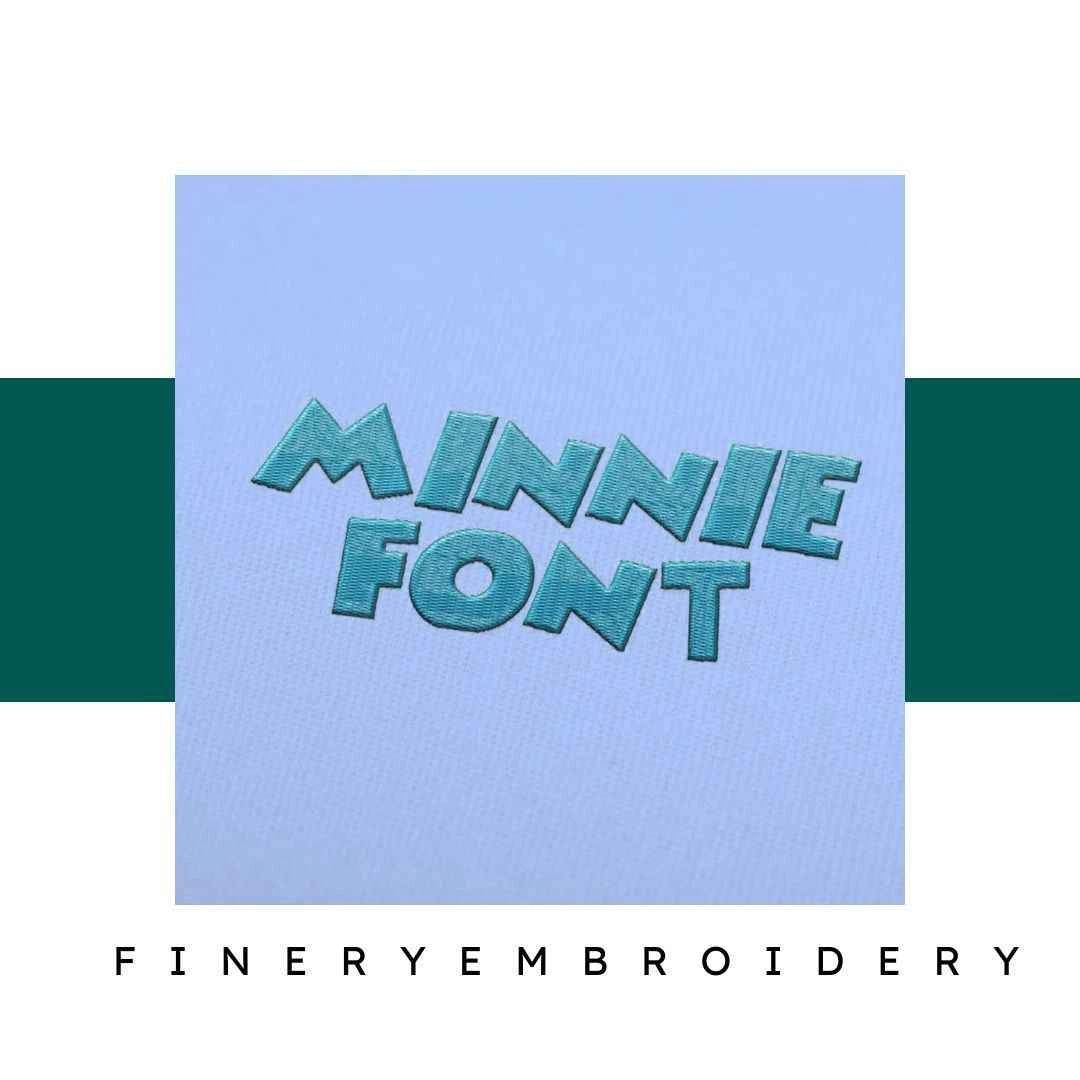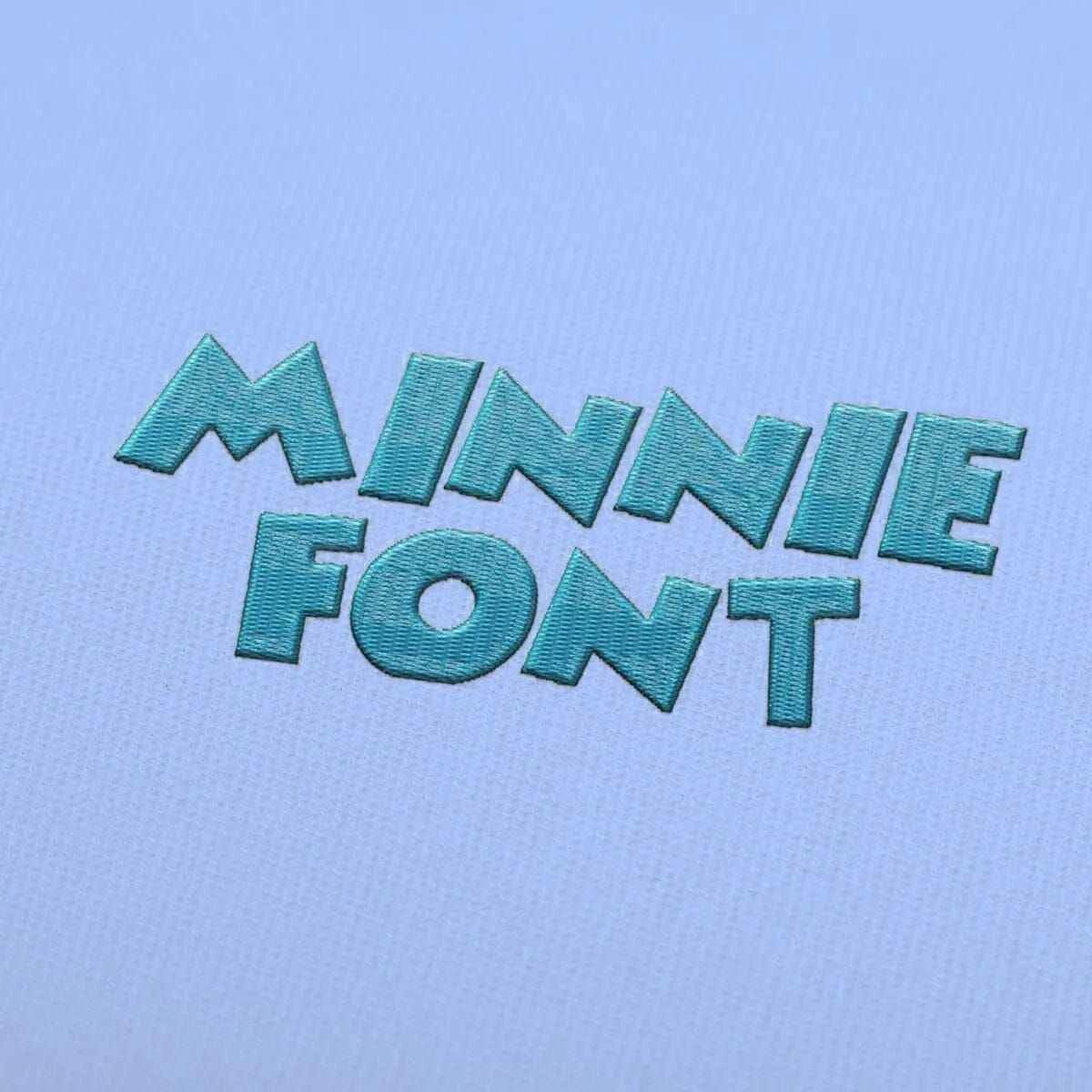
Minnie Embroidery alphabet Font Set
Transform your embroidery projects with the enchanting Minnie Embroidery Alphabet Font Set, where elegance meets creativity for every stitch artist!
Introducing the Minnie Embroidery Alphabet Font Set! This delightful collection is designed to infuse your embroidery creations with charm and sophistication. Perfect for personalizing a range of projects, this font set makes every letter a work of art, allowing you to showcase your unique style and creativity.
Why You'll Love This Design
The Minnie Embroidery Alphabet Font Set features a stunning array of alphabets, each designed with intricate details that bring a touch of elegance to your work. The versatility of this set ensures that it can cater to various styles, whether you’re crafting gifts, home decor, or personalized items.
Creative Applications
Imagine the endless possibilities with this font set! From monogramming towels and pillowcases to creating unique name tags for special events, the Minnie Embroidery Alphabet Font Set is perfect for any occasion. Let your imagination run wild and add a personal touch to your embroidery projects that friends and family will cherish.
- Intricate designs that enhance the aesthetic of your creations, making them standout pieces.
- A must-have for any embroidery enthusiast looking to elevate their artistic expression.